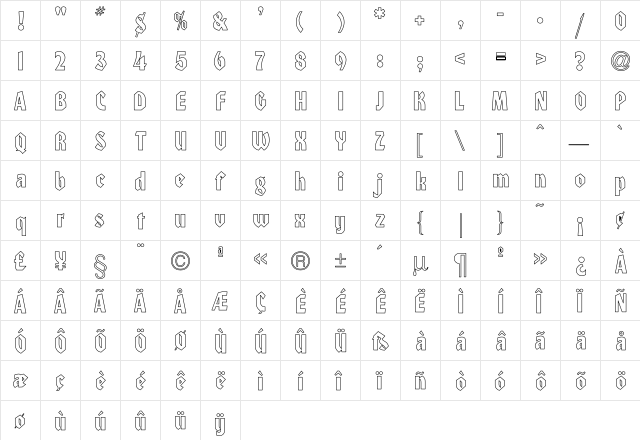
Heidelberg-Normal Hollow Regular
Design Context for Heidelberg-Normal Hollow Typeface
Heidelberg-Normal Hollow takes a measured approach to typography — its balanced proportions and neutral character make it a reliable workhorse for both digital and print work.